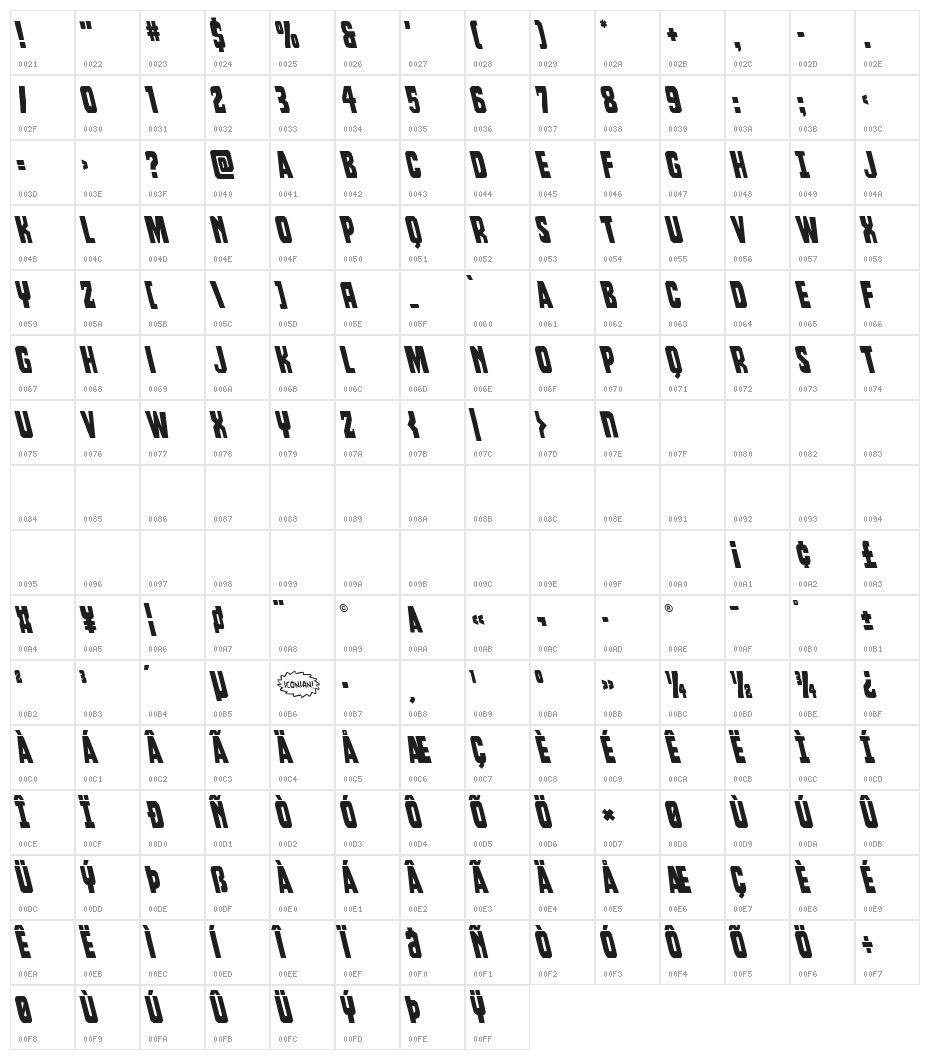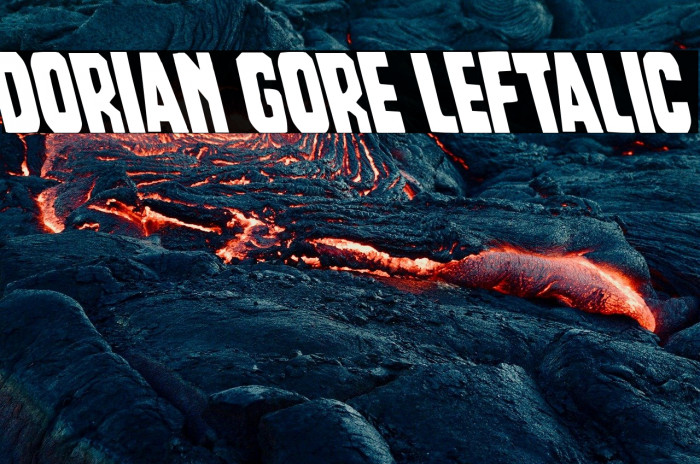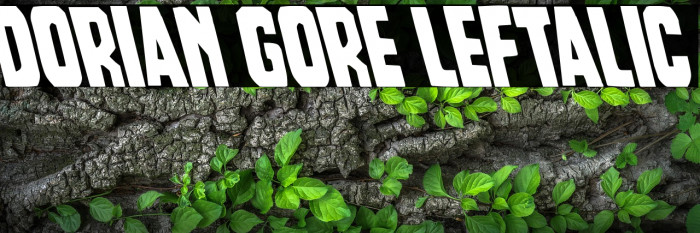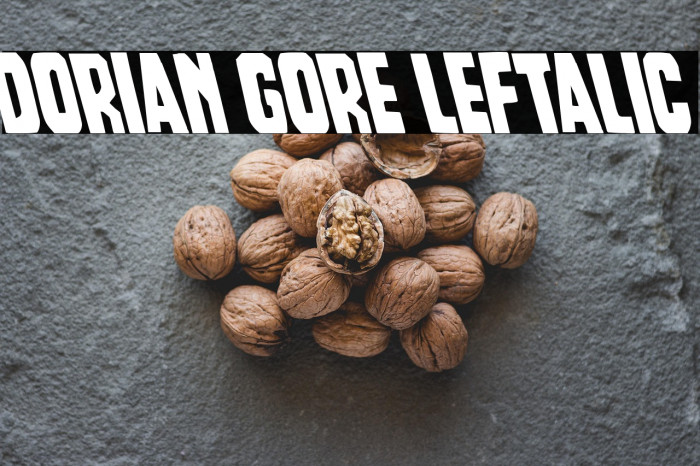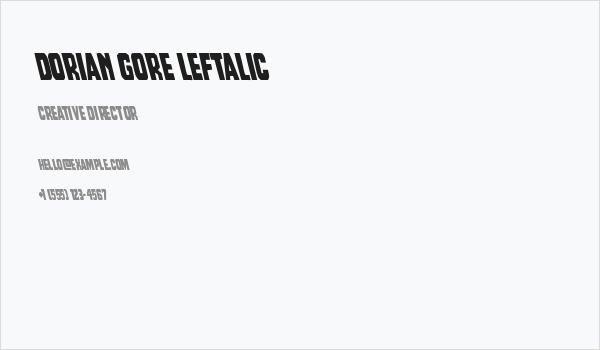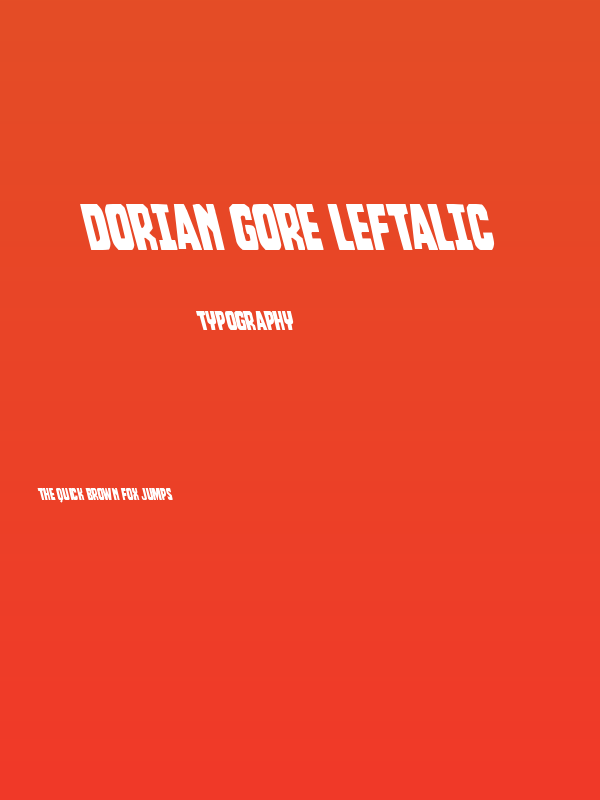
Dorian Gore Leftalic Font
Dorian Gore Leftalic Description
This font features a bold and dynamic style with a distinct leftward slant, giving it a sense of movement and energy. The characters are thick and blocky, with sharp angles and a strong presence. The uppercase and lowercase letters maintain a consistent weight, while the numbers and special characters are equally robust. This font's design is striking and attention-grabbing, making it ideal for impactful headlines or branding that requires a bold statement. The overall appearance is modern and slightly aggressive, suitable for projects that aim to convey strength and confidence.
| Proposed Projects | Ideal for sports branding, action movie posters, dynamic advertisements, and bold headlines. |